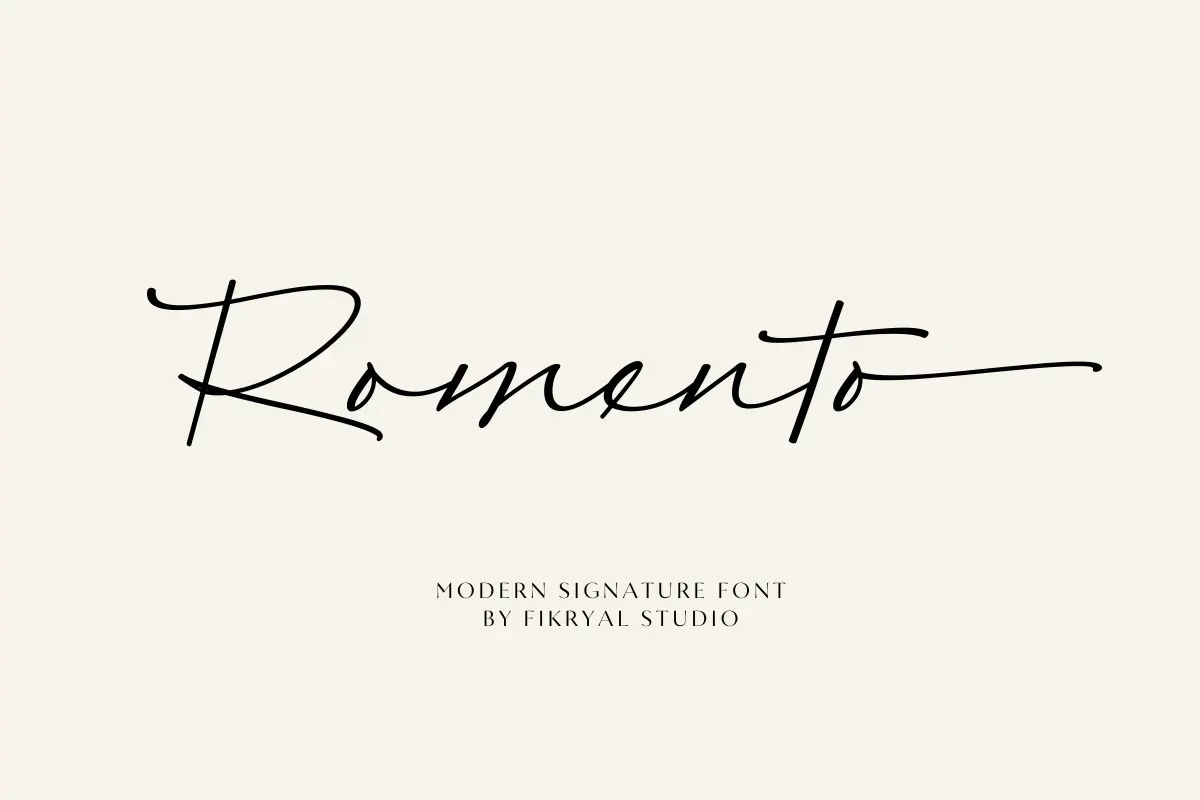
Romento – Modern Signature Font Free Download is a sleek and sophisticated script typeface that captures the elegance of a handwritten signature. With smooth strokes and natural flow, Romento is perfect for branding, personal logos, wedding stationery, fashion campaigns, and high-end packaging. It’s designed to bring a luxurious and authentic touch to any project.
This font is ideal for anyone looking to convey personality and style with subtle elegance. Its refined curves and carefully crafted ligatures make Romento stand out, especially in minimalist or upscale design contexts. It’s also highly readable, making it suitable for both large headings and smaller text accents.